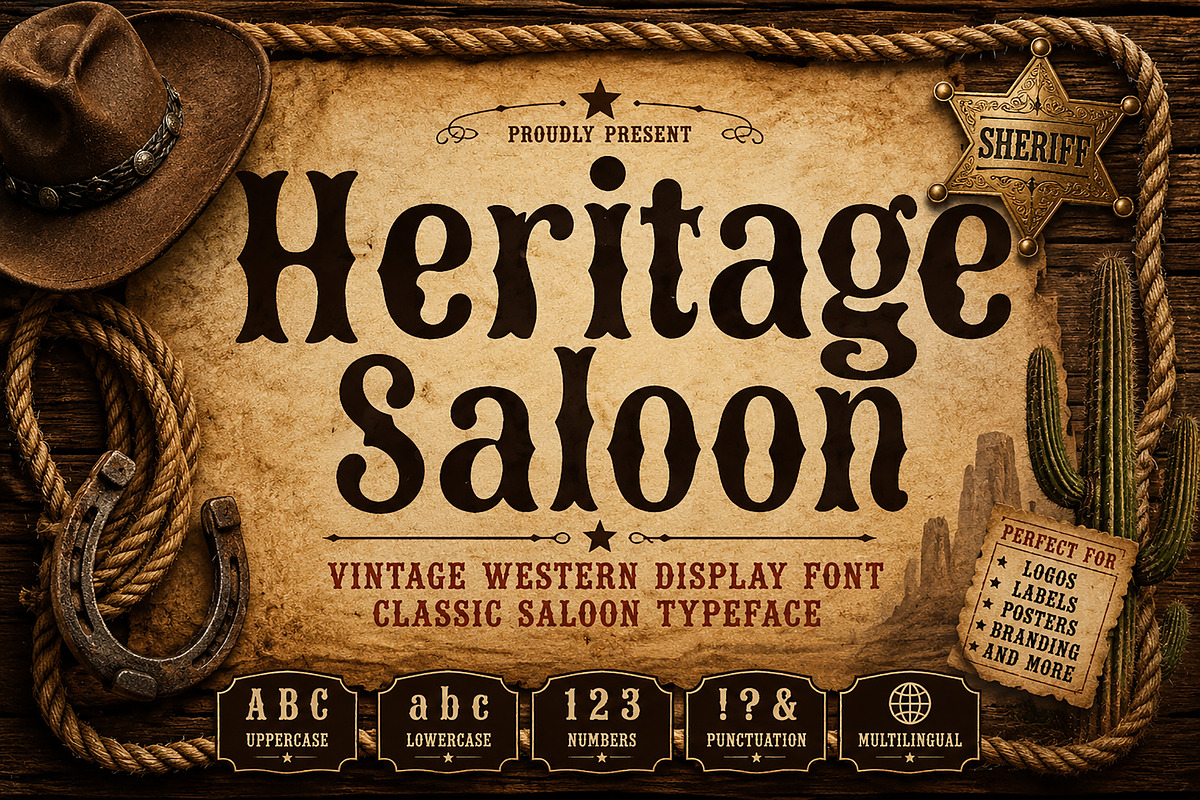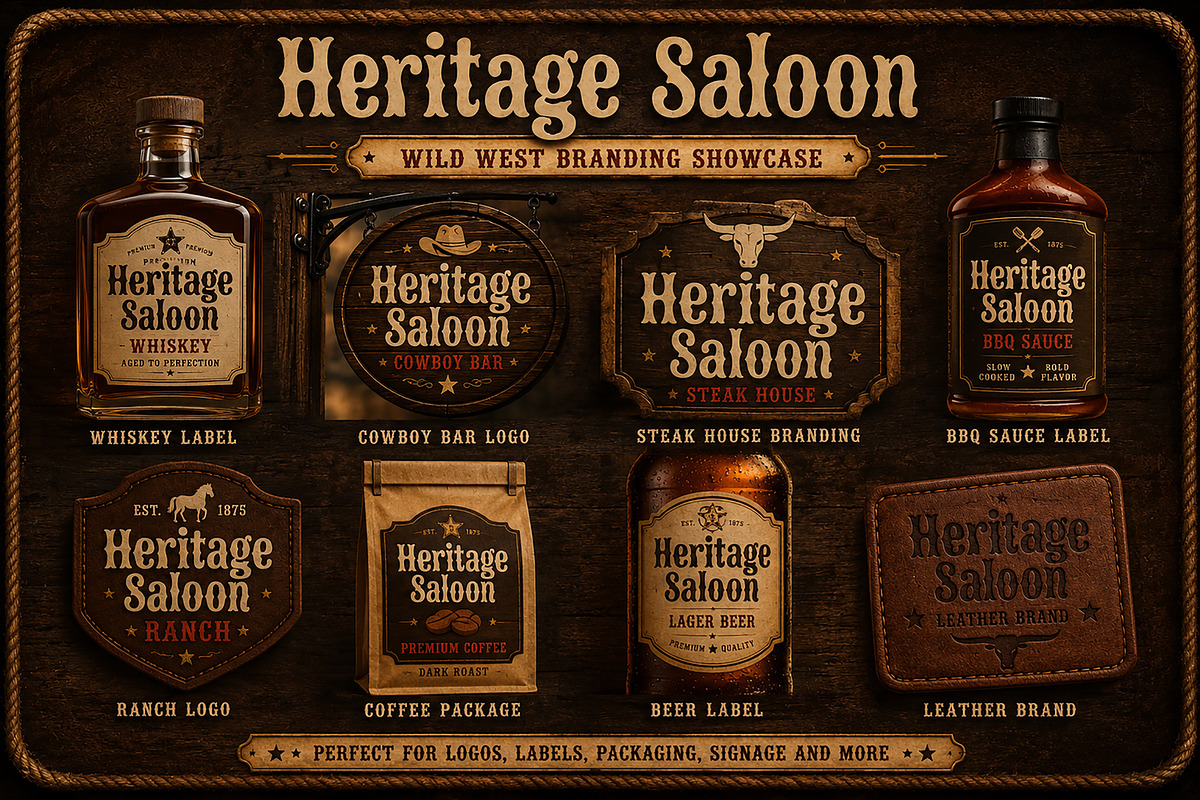
Heritage Saloon
Heritage Saloon – Vintage Western Display Font
Heritage Saloon is a bold vintage Western display font inspired by classic saloons, ranches, whiskey labels, and rustic Americana design. Perfect for logos, signage, packaging, posters, branding, apparel, and all Wild West-themed creative projects.
Heritage Saloon is a bold vintage Western display font inspired by classic saloon signs, old cowboy towns, ranch branding, whiskey labels, and rustic Americana typography. Featuring distinctive letterforms with authentic Wild West character, this font brings timeless charm and rugged personality to your creative projects.
Perfect for eye-catching headlines and vintage branding, Heritage Saloon captures the spirit of old frontier culture while maintaining excellent readability. Whether you're designing a rustic logo, restaurant sign, or retro poster, this typeface delivers a classic handcrafted Western feel.
Western Logos
Saloon Signs
Ranch Branding
Whiskey & Beer Labels
BBQ Restaurant Branding
Steakhouse Menus
Country Music Posters
Vintage Packaging
Coffee Labels
Leather Goods Branding
Farm & Rustic Markets
Festival Posters
Apparel & T-shirt Designs
Stickers & Merchandise
Uppercase Letters
Lowercase Letters
Bring the authentic atmosphere of the American frontier into your next project with Heritage Saloon—a vintage display font designed to make every headline bold, memorable, and full of Western character.